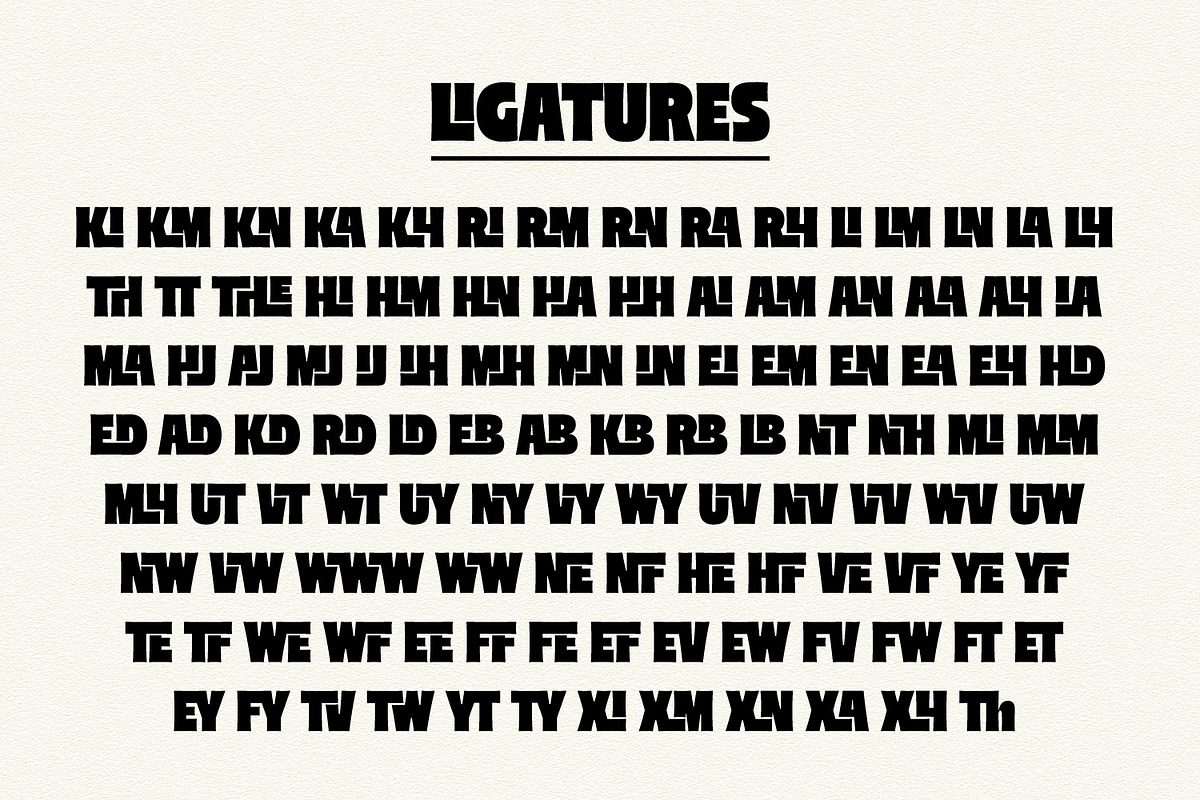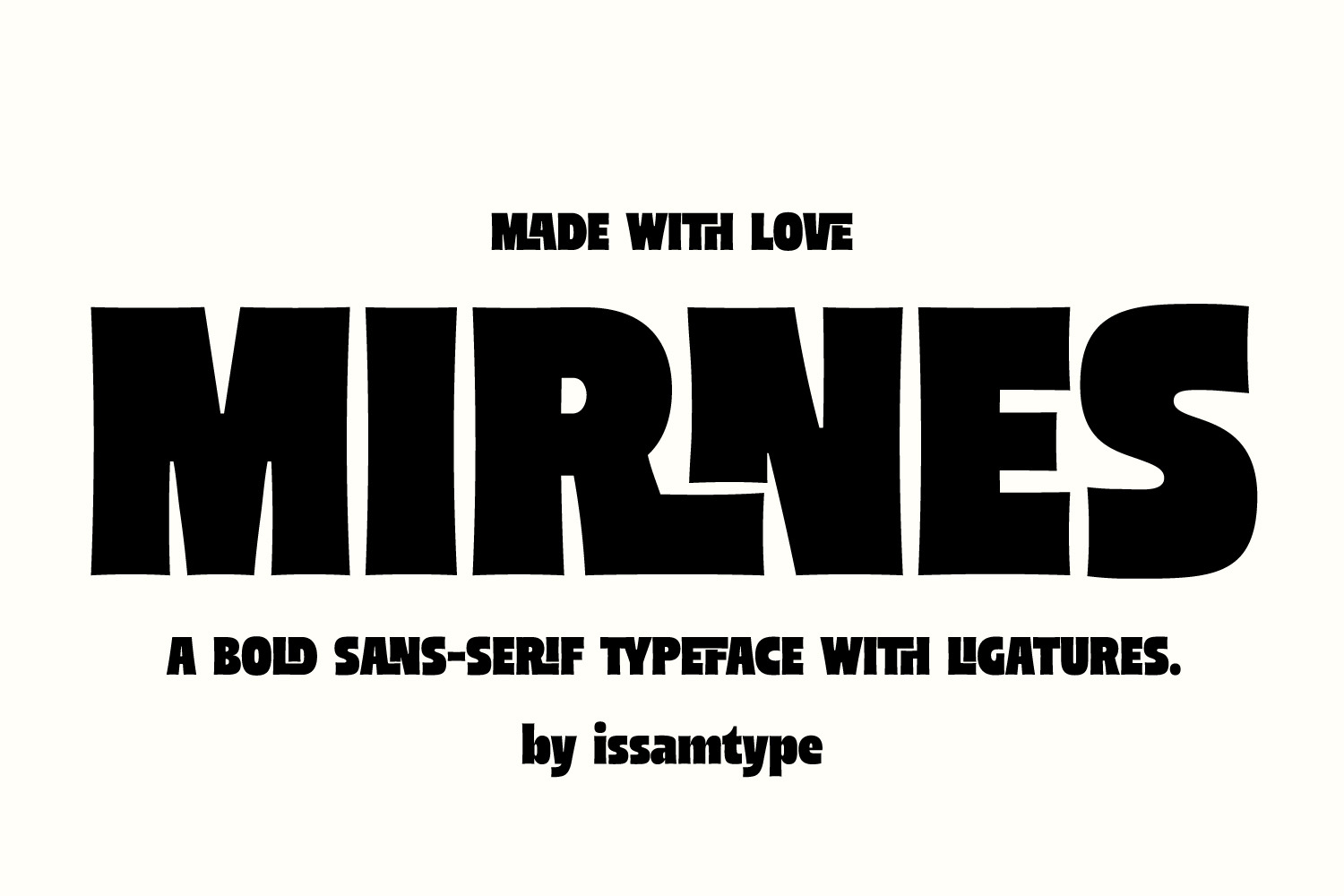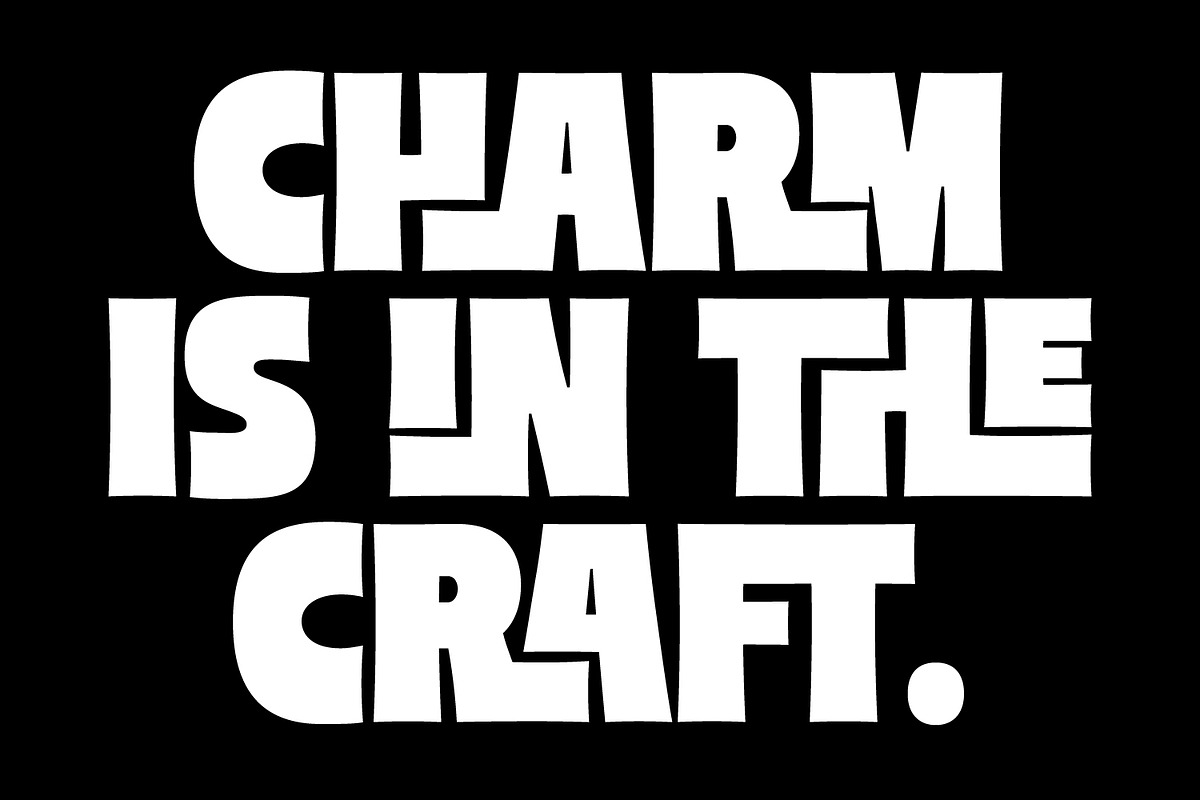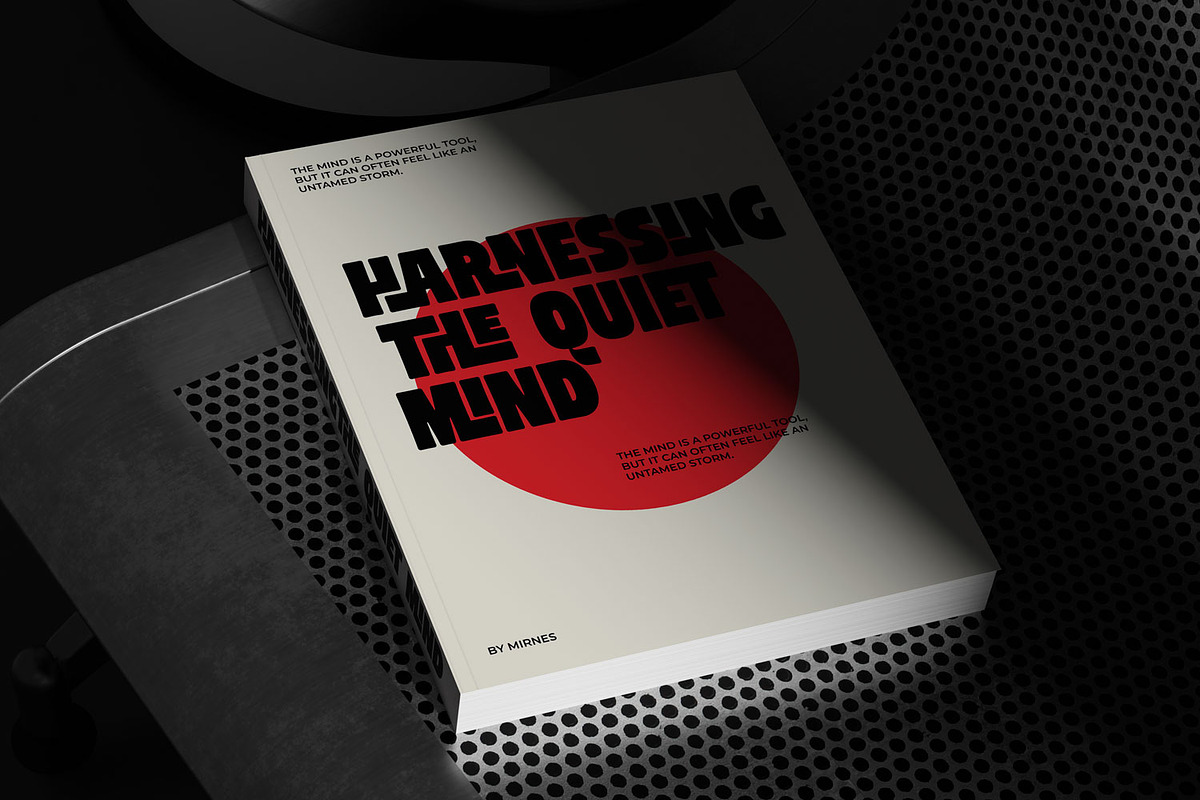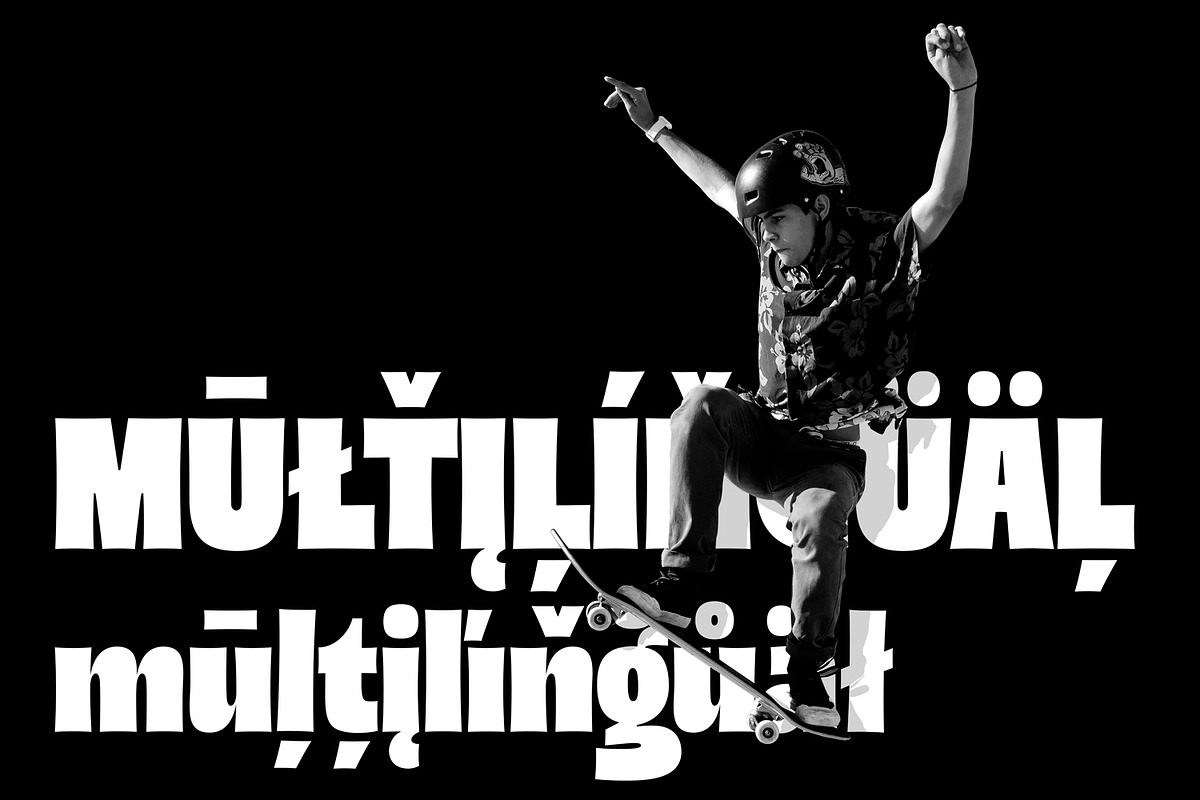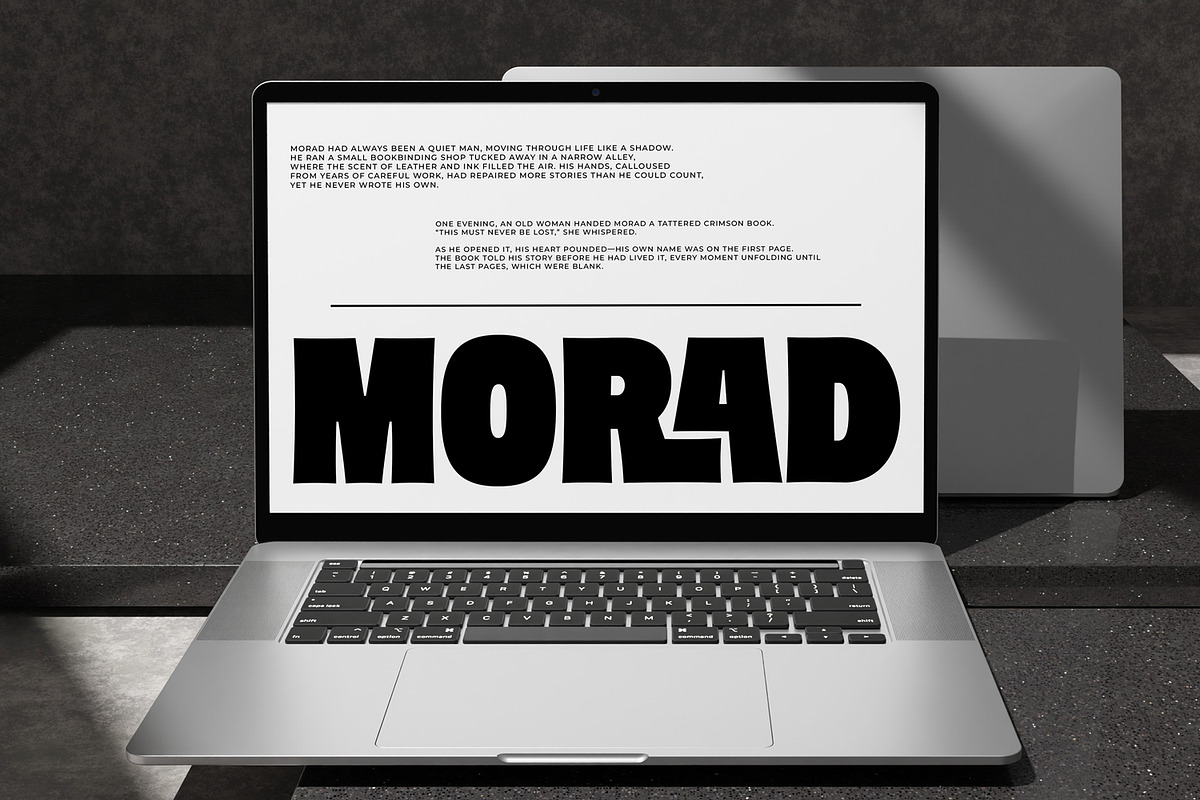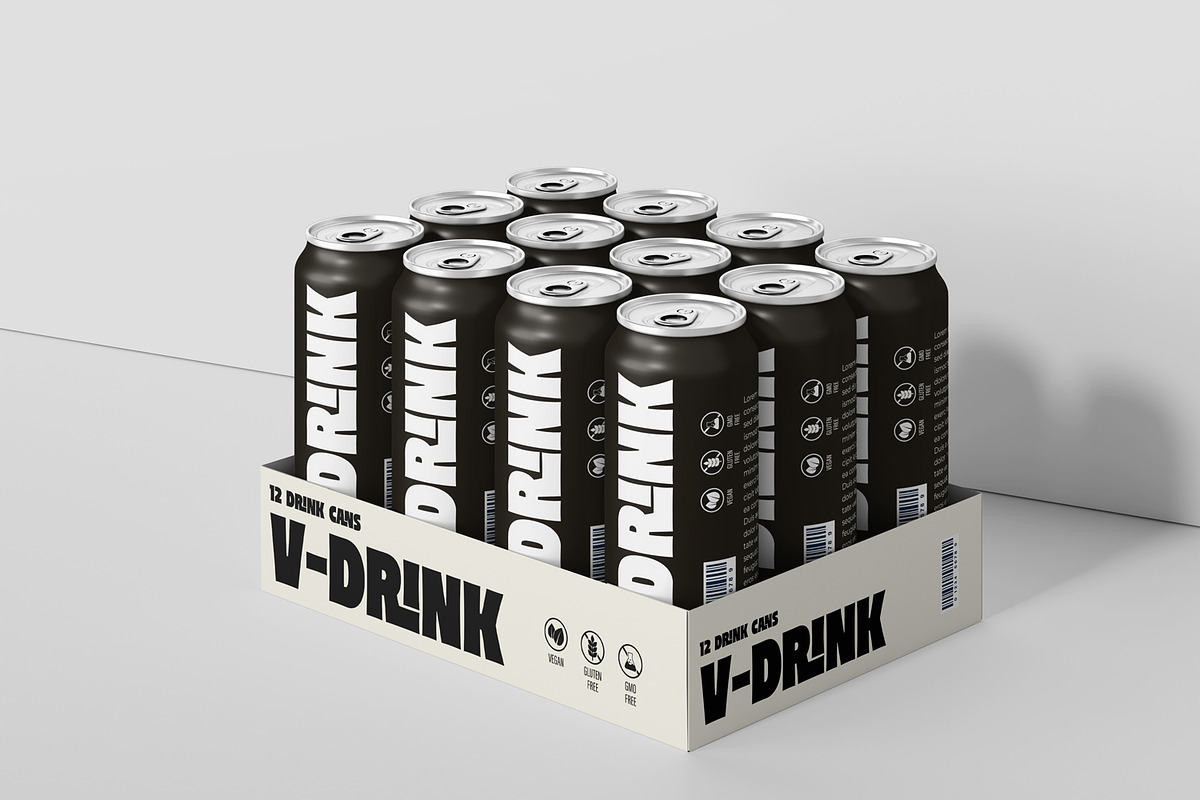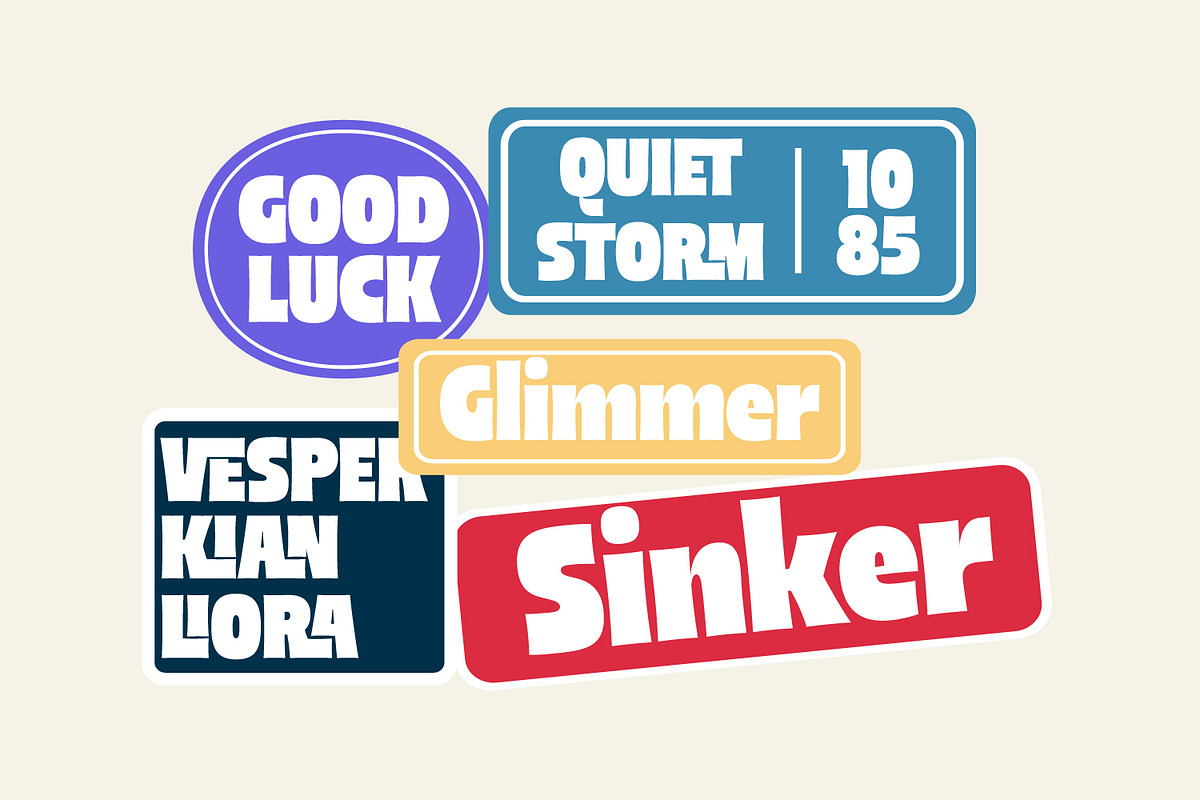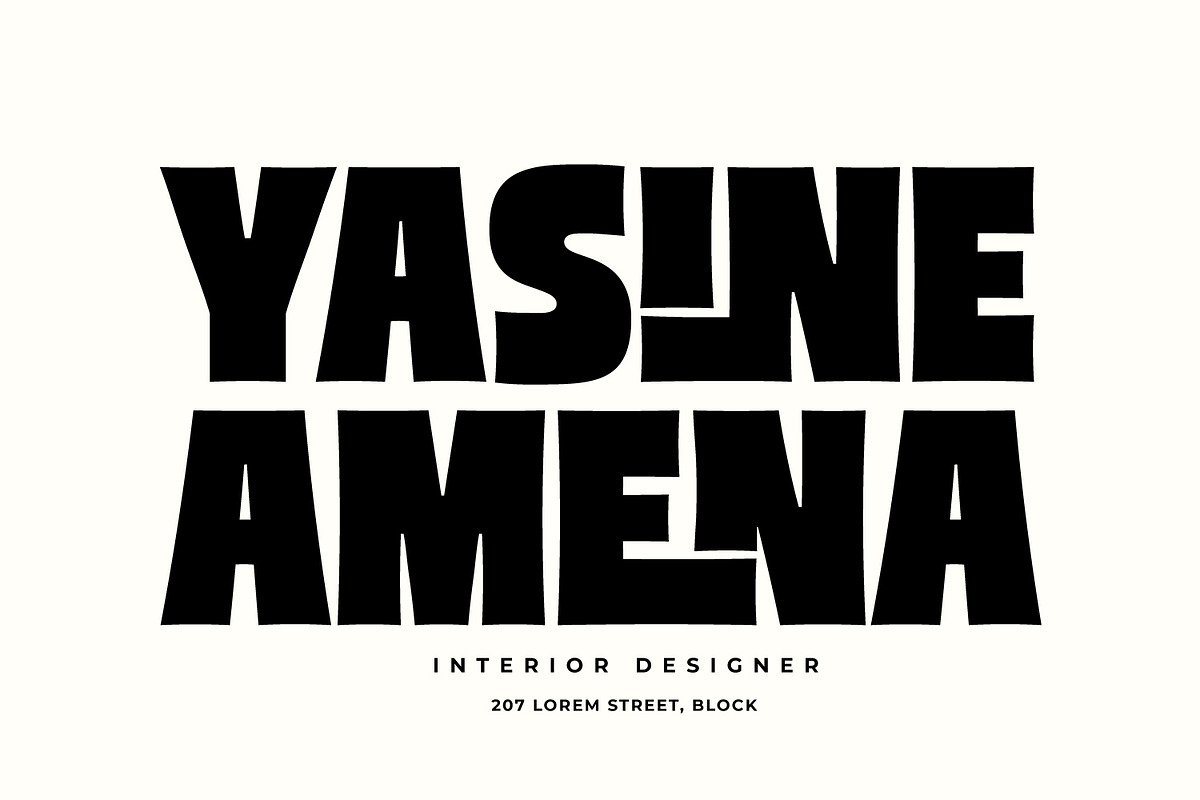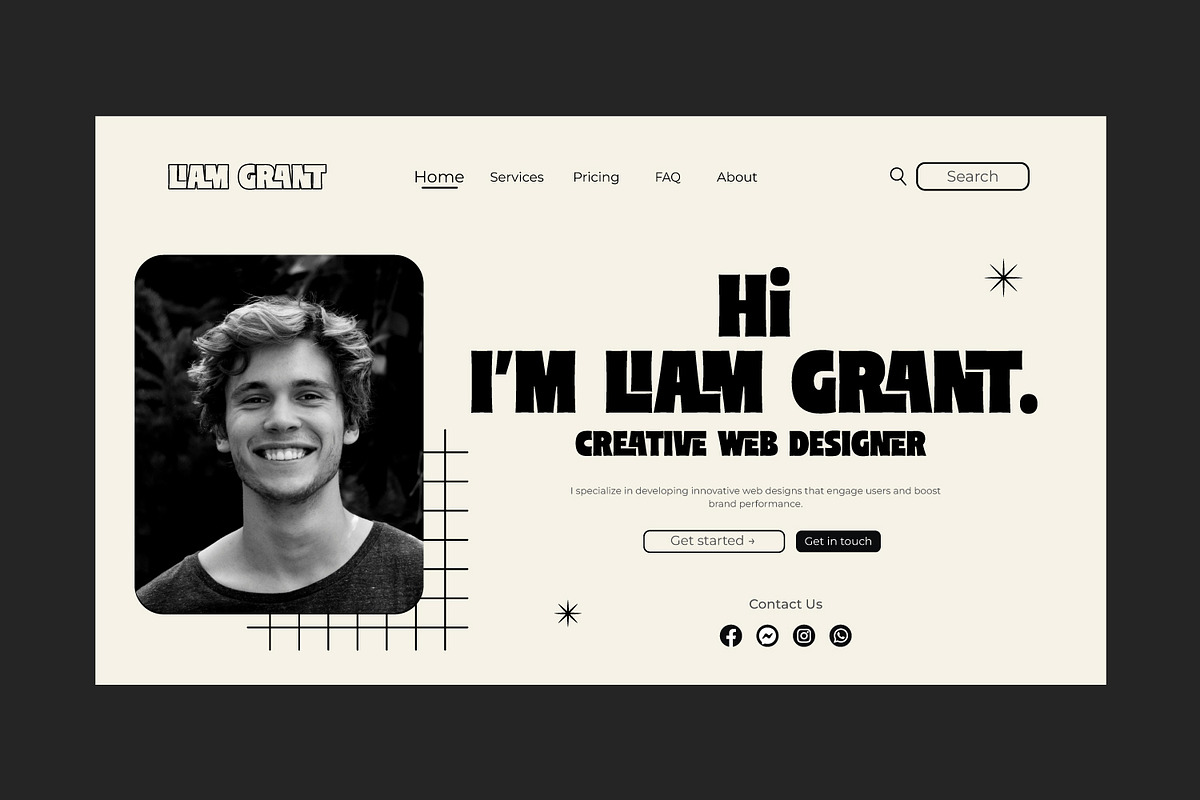
Mirnes – Ligature Sans Serif Font
Mirnes is a bold ligature typeface with striking letterforms and unique ligatures, perfect for impactful headlines and creative branding – and so much more.
Mirnes comes with Regular, Rounded, and Outline styles, along with uppercase letters, numbers, punctuation, alternates, and multilingual support, making it versatile for any design project.
OpenType Features:
- Kerning
- Stylistic Sets